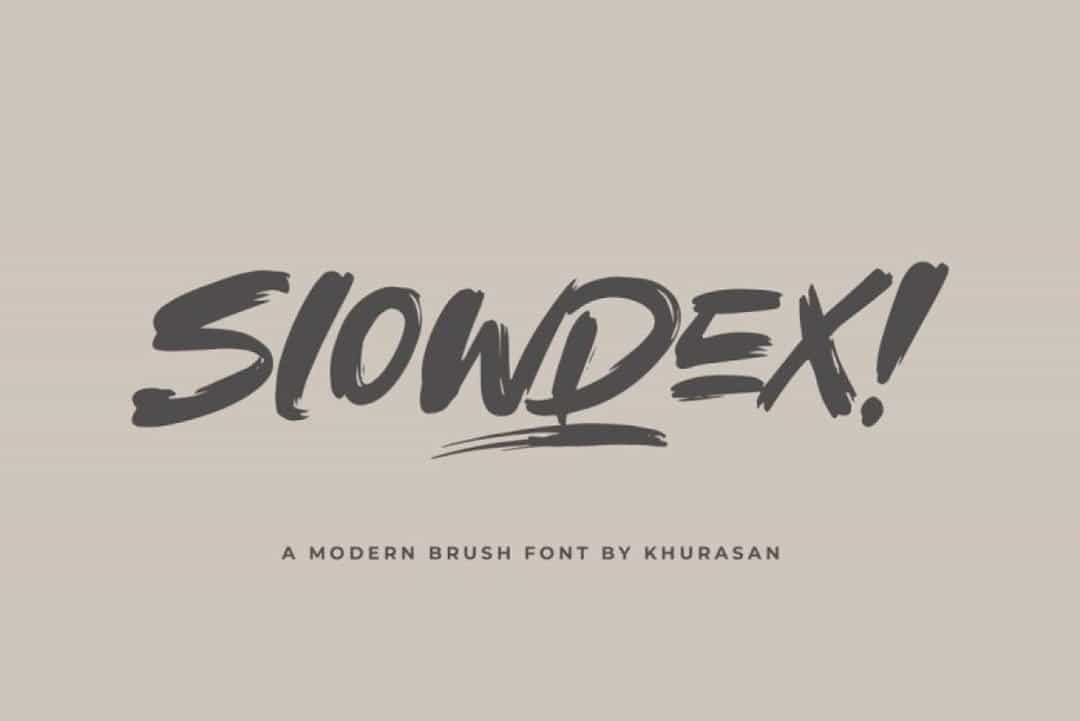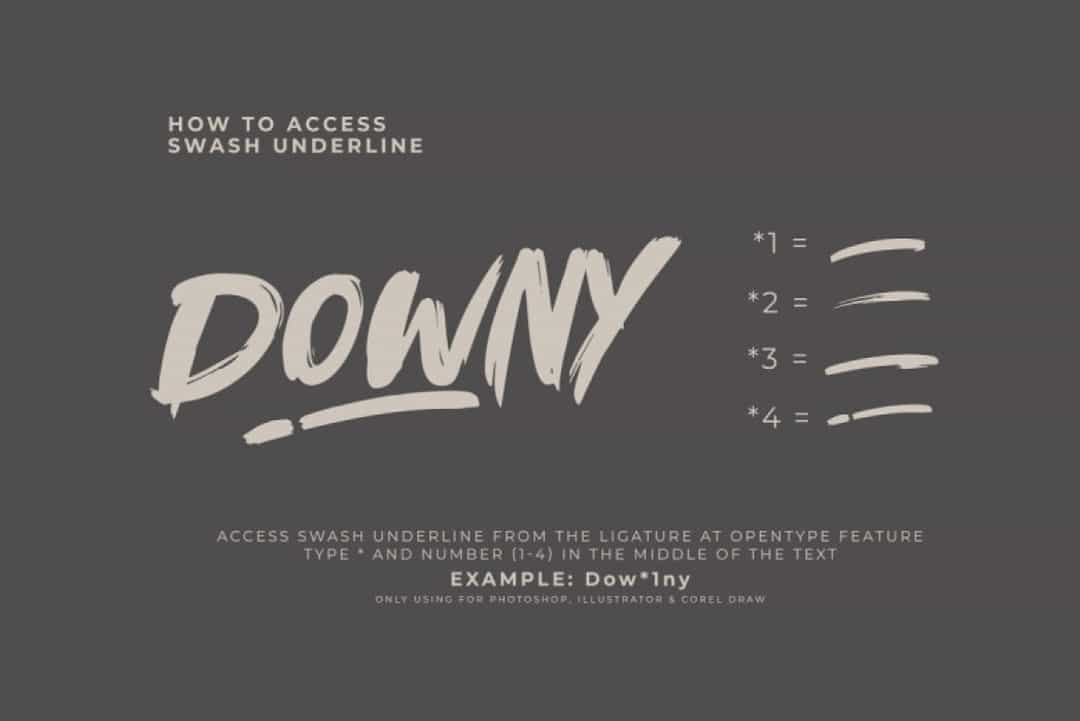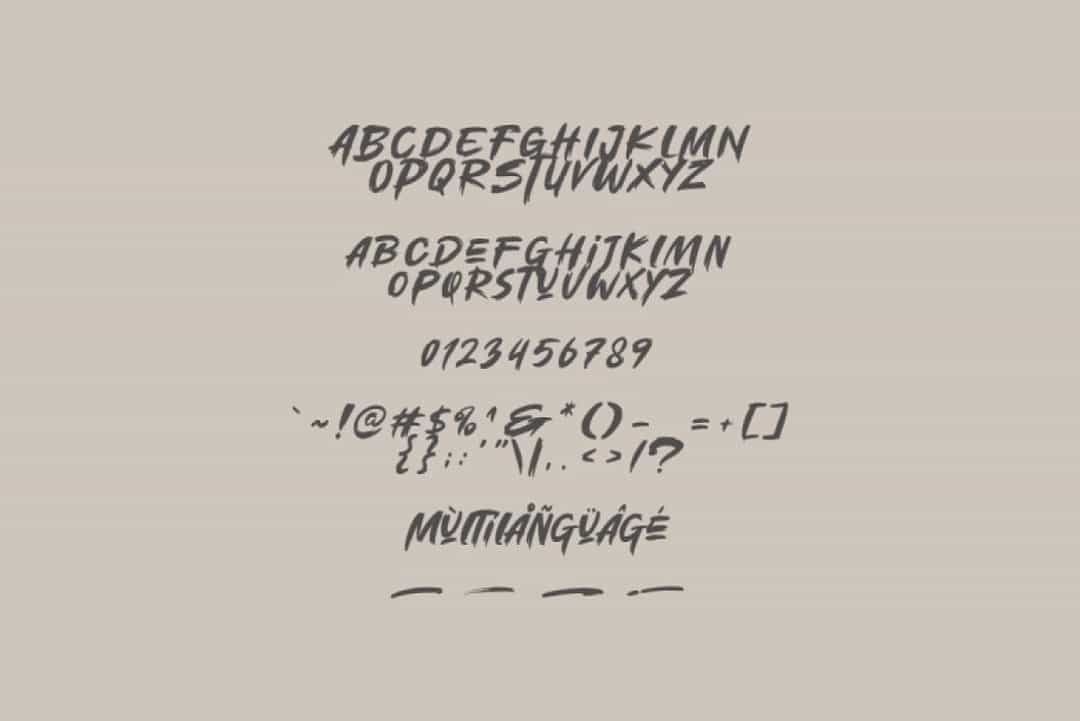
Slowdex is an eye-catching brush-style font perfect for creating stunning logos, posters, magazine covers, book covers banners and book covers! Use this handwritten font to design stunning artwork! With so many uses to choose from, be sure to incorporate Slowdex in your creative ideas and see how they stand out!